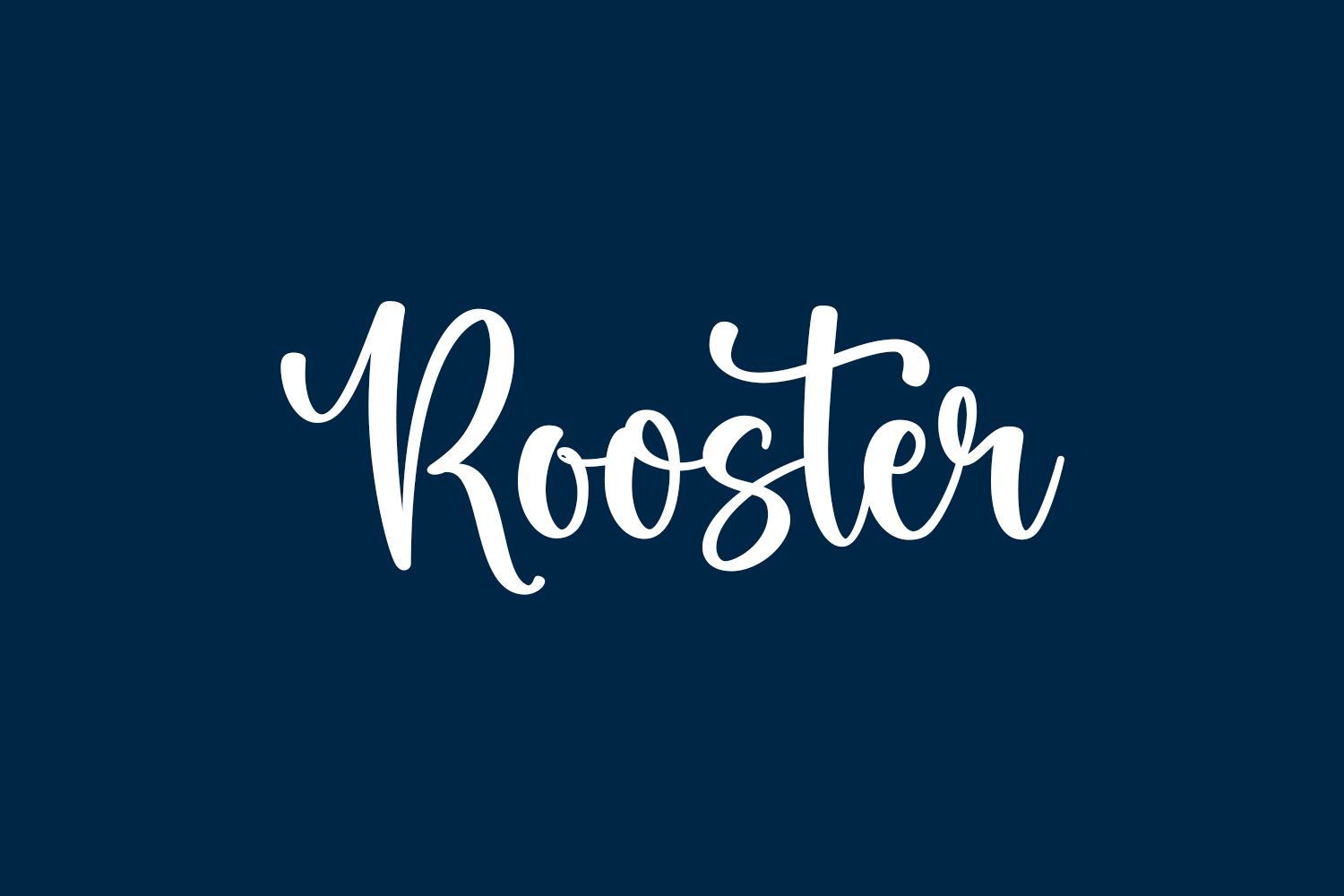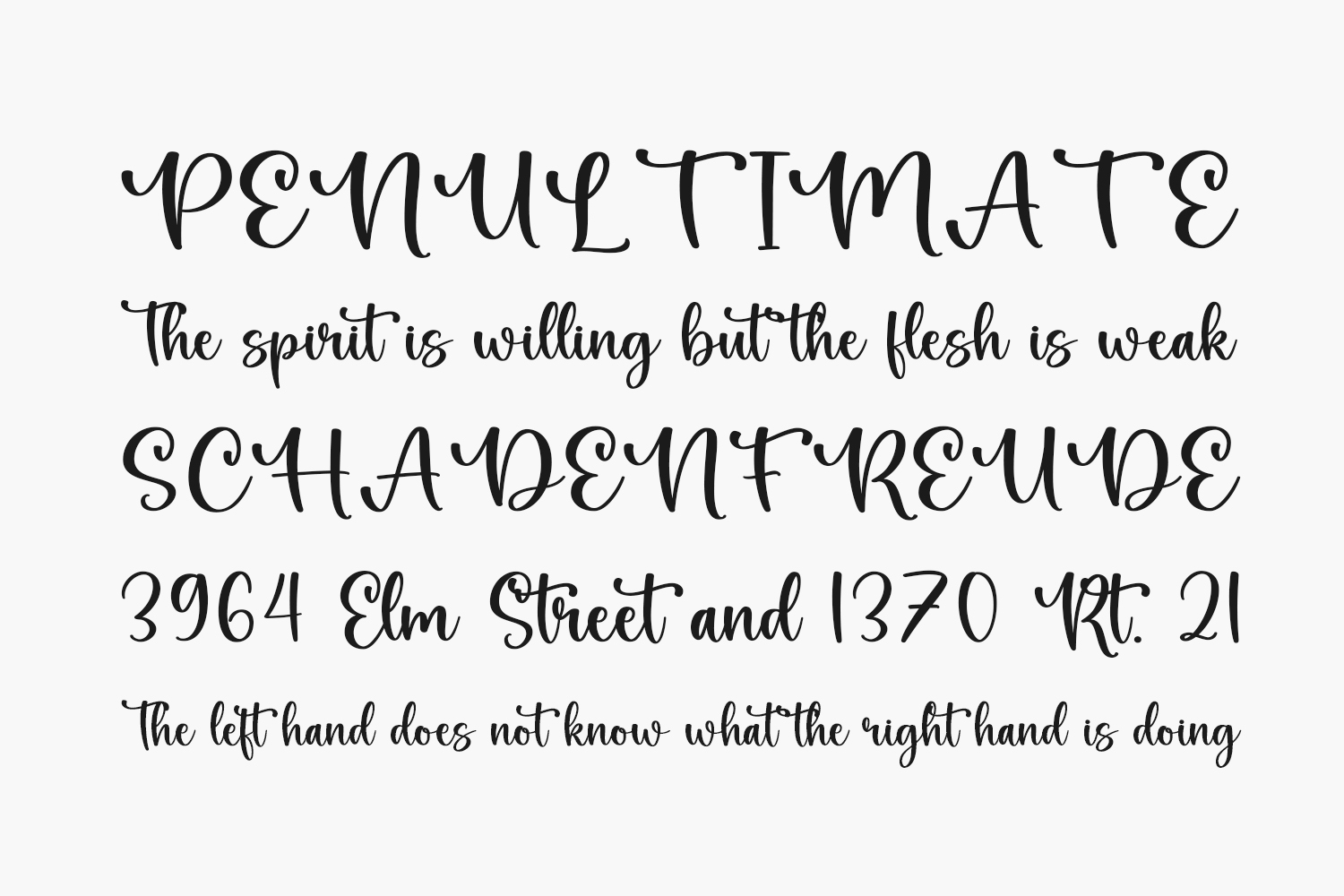
Explore the Rooster Free Font Family, a delightful and approachable handwritten font duo. With its beautifully crafted and well-balanced characters, this font duo seamlessly complements a diverse range of designs, making it a versatile choice for your creative projects. Rooster Free Font Family was designed by Graphix Line Studio and is free for personal use only. Please purchase the full version for commercial use.